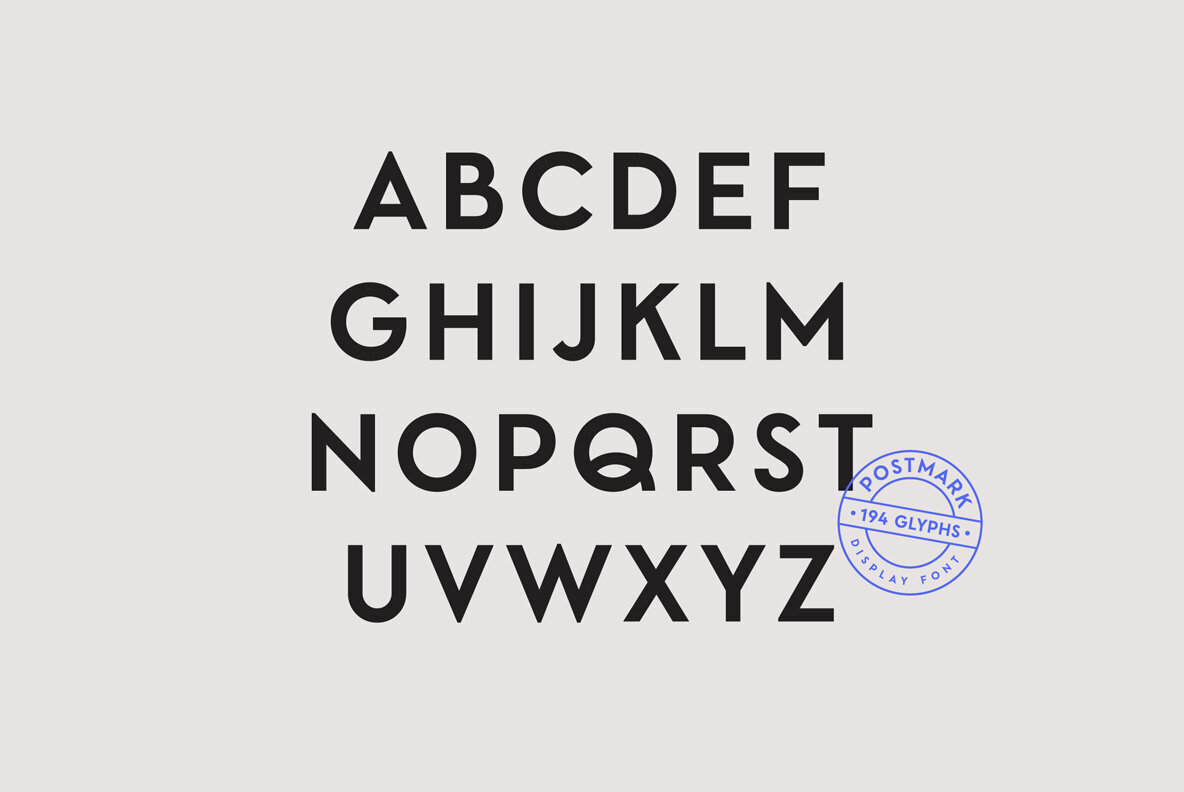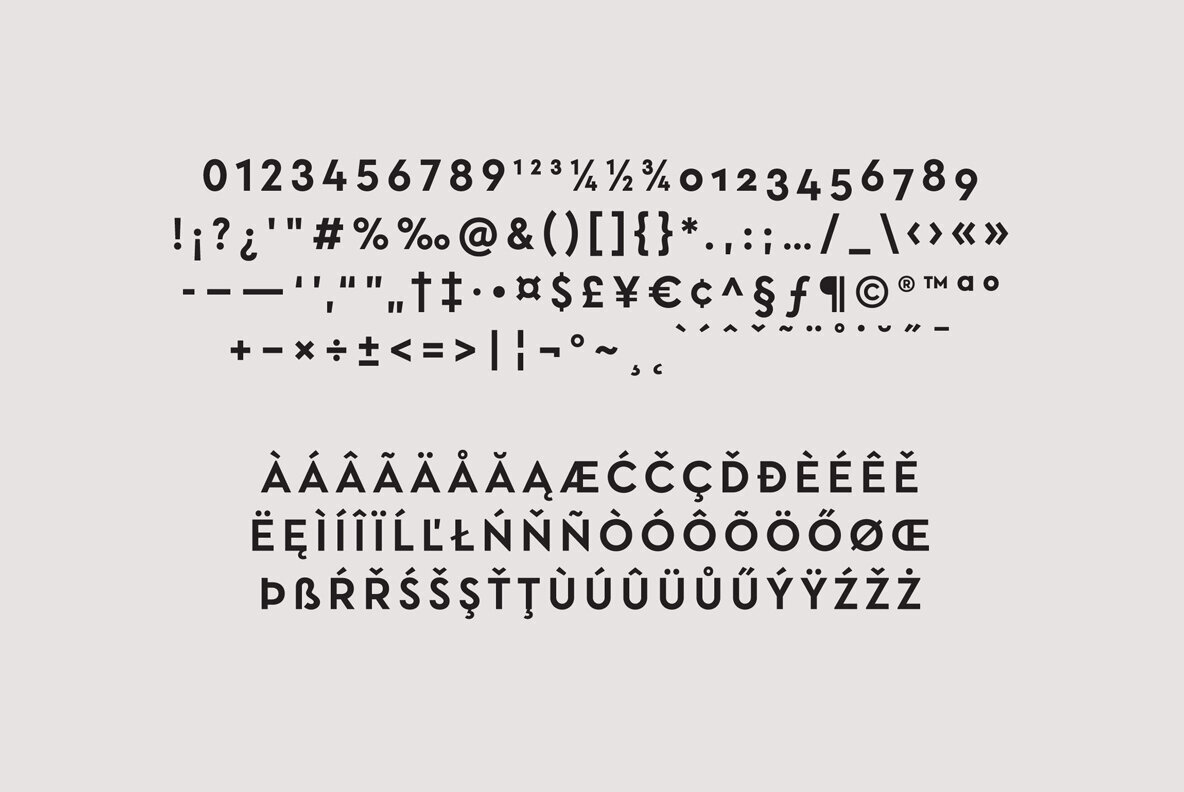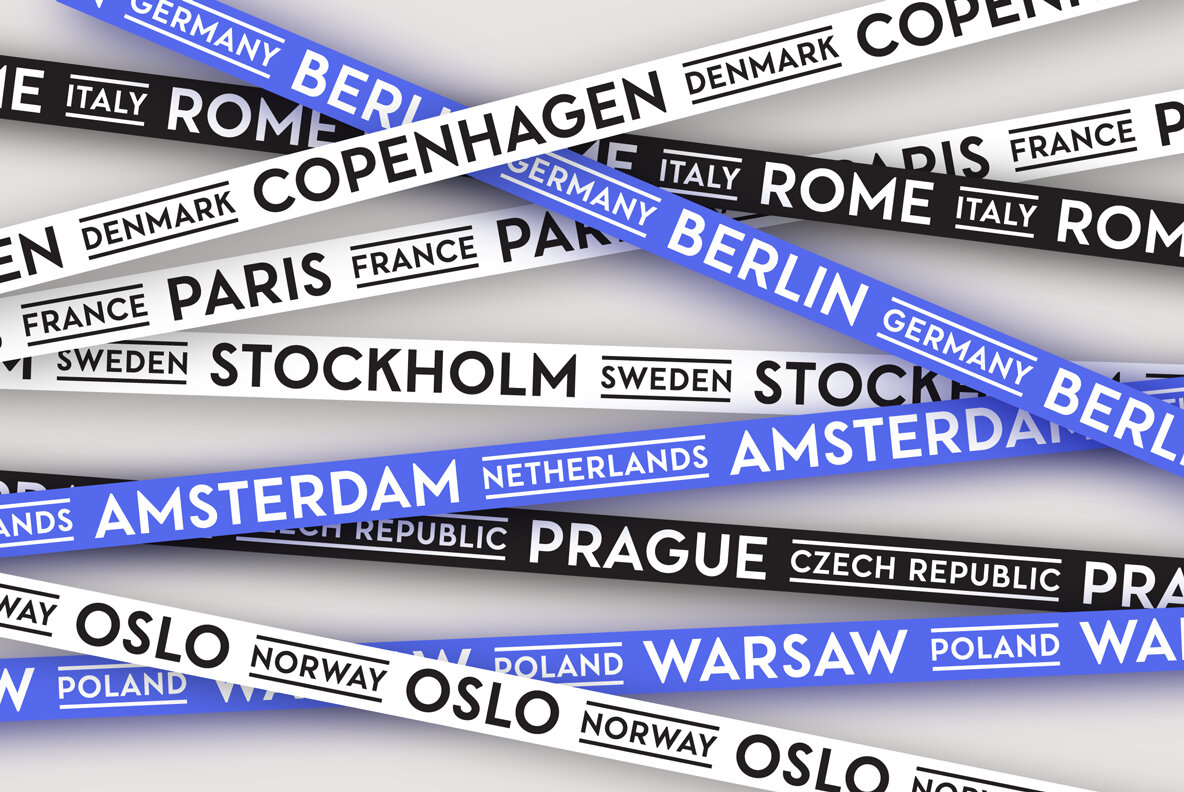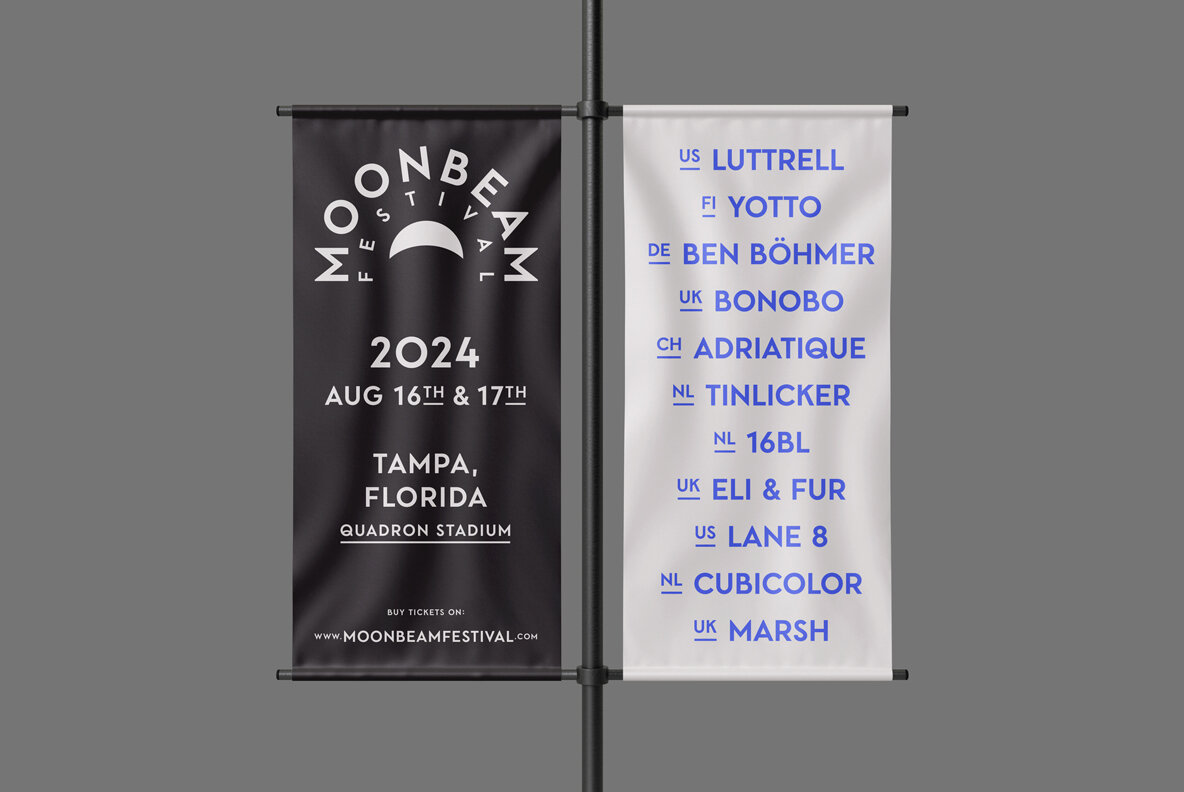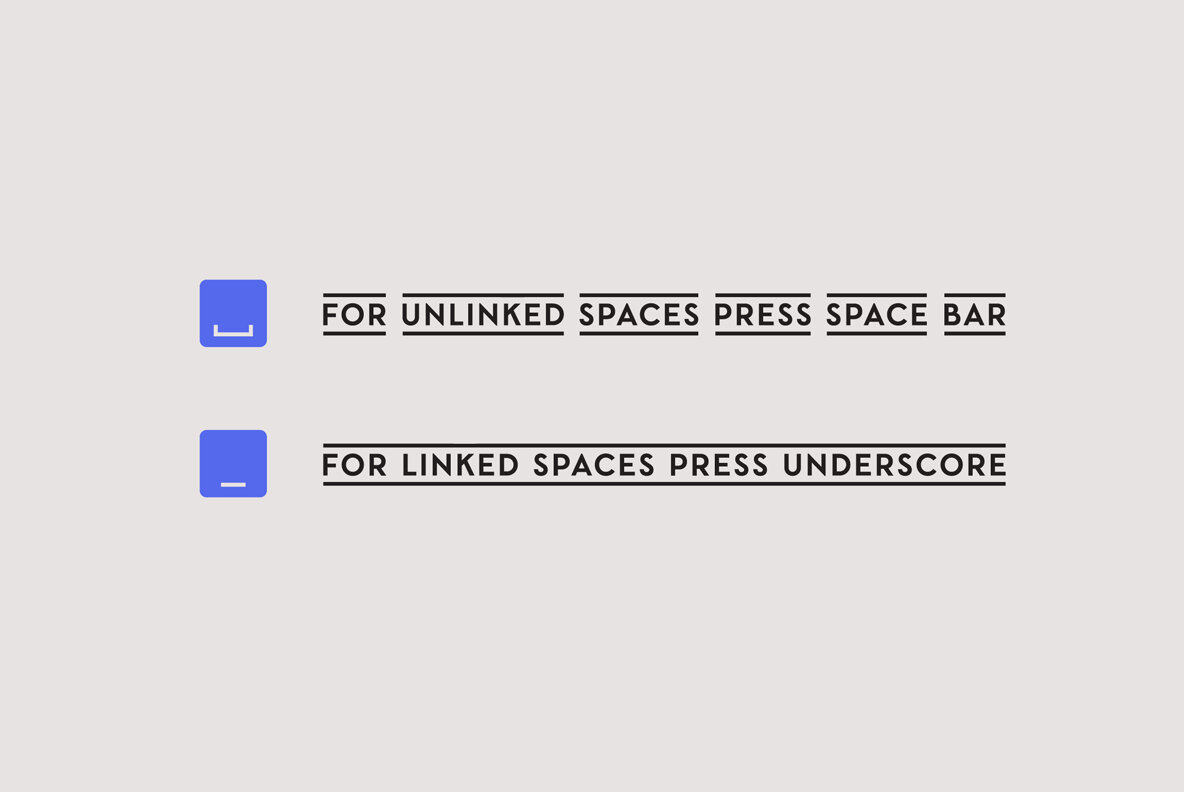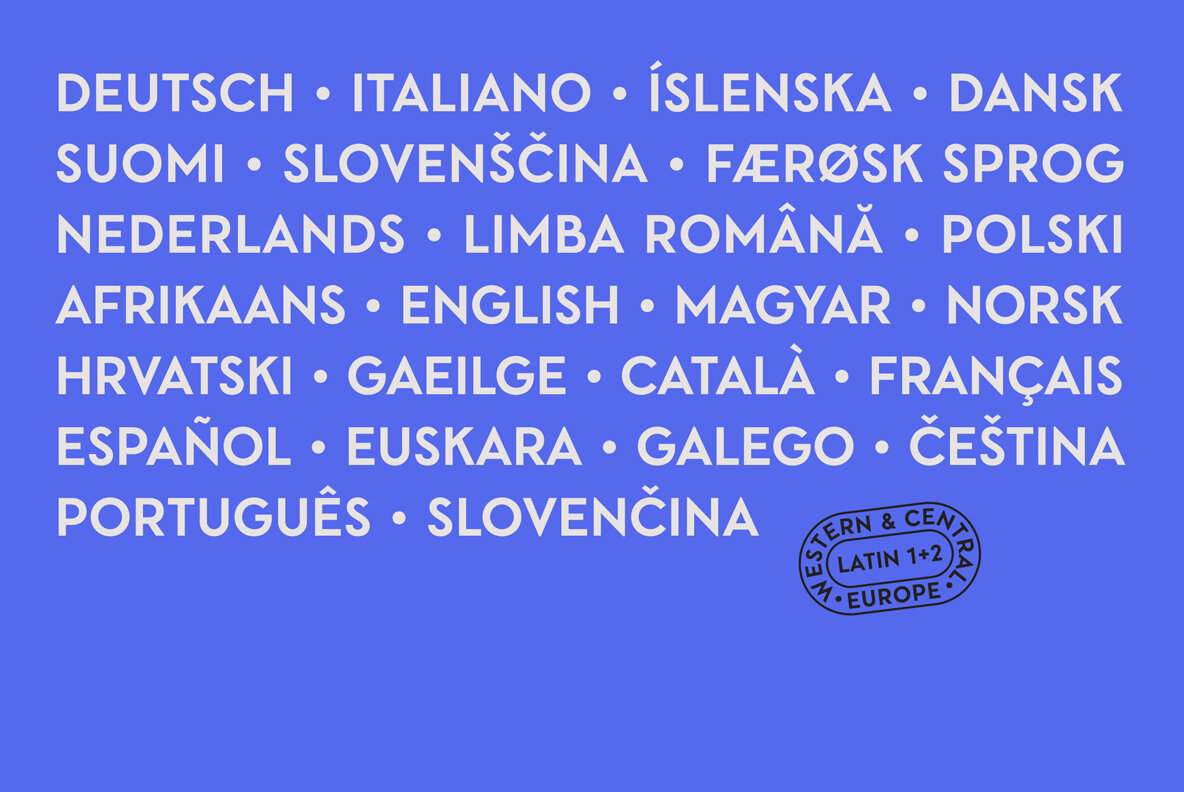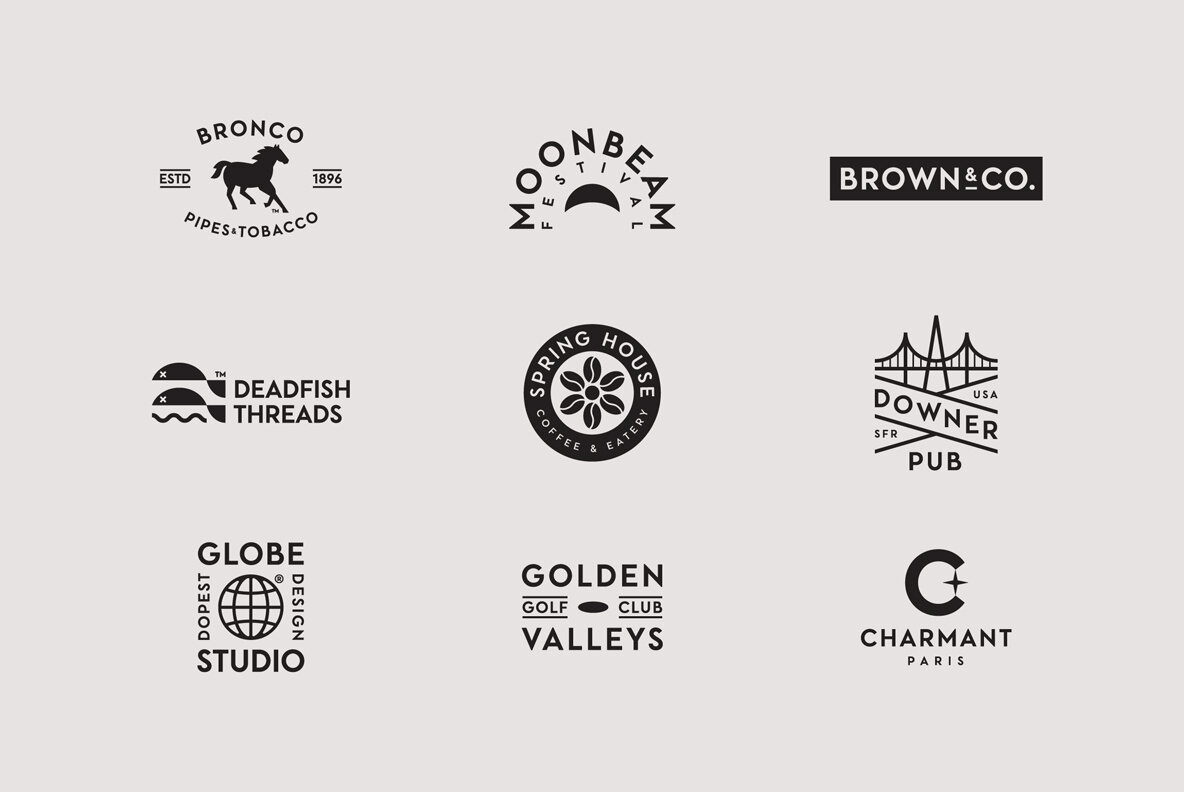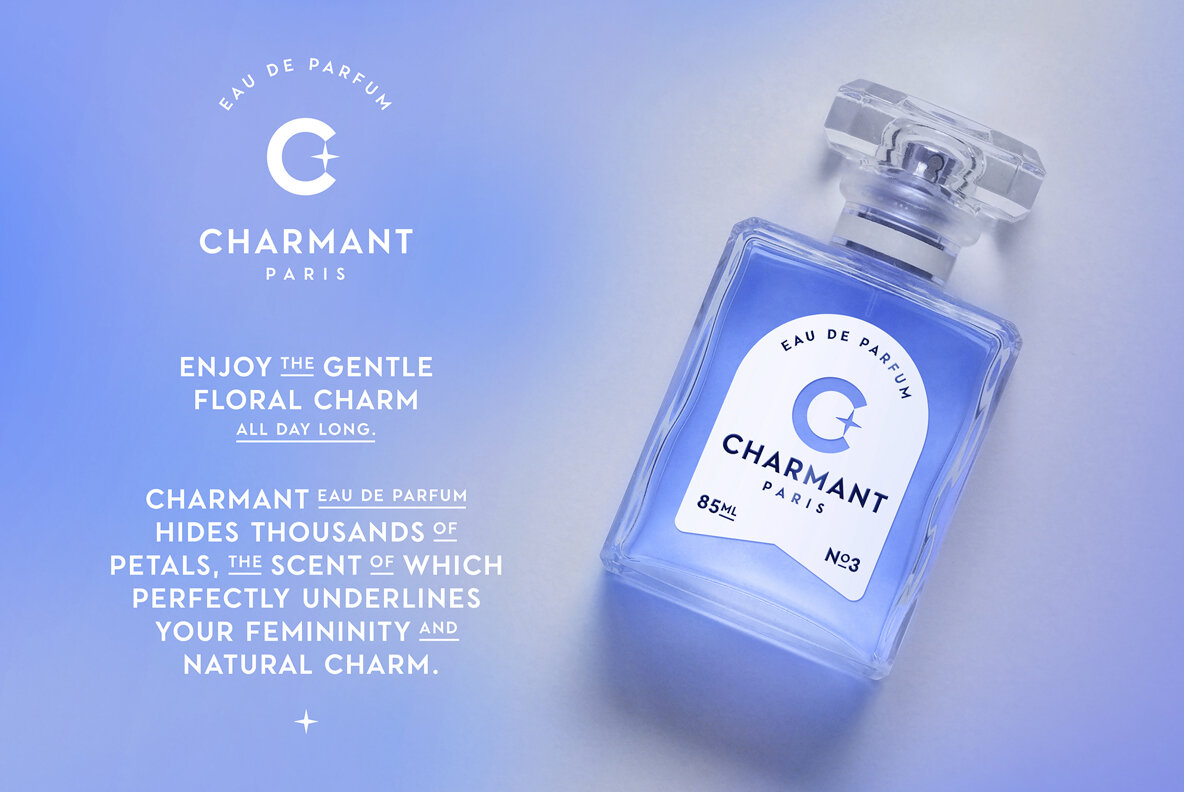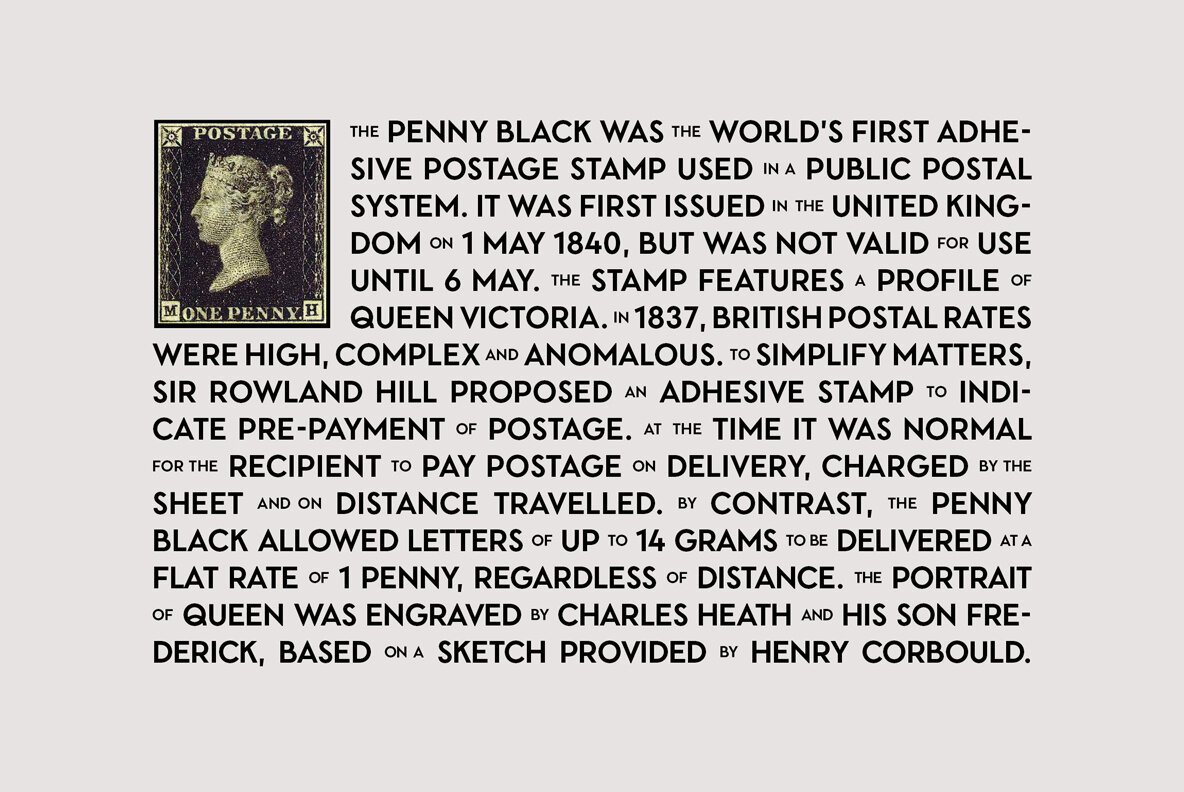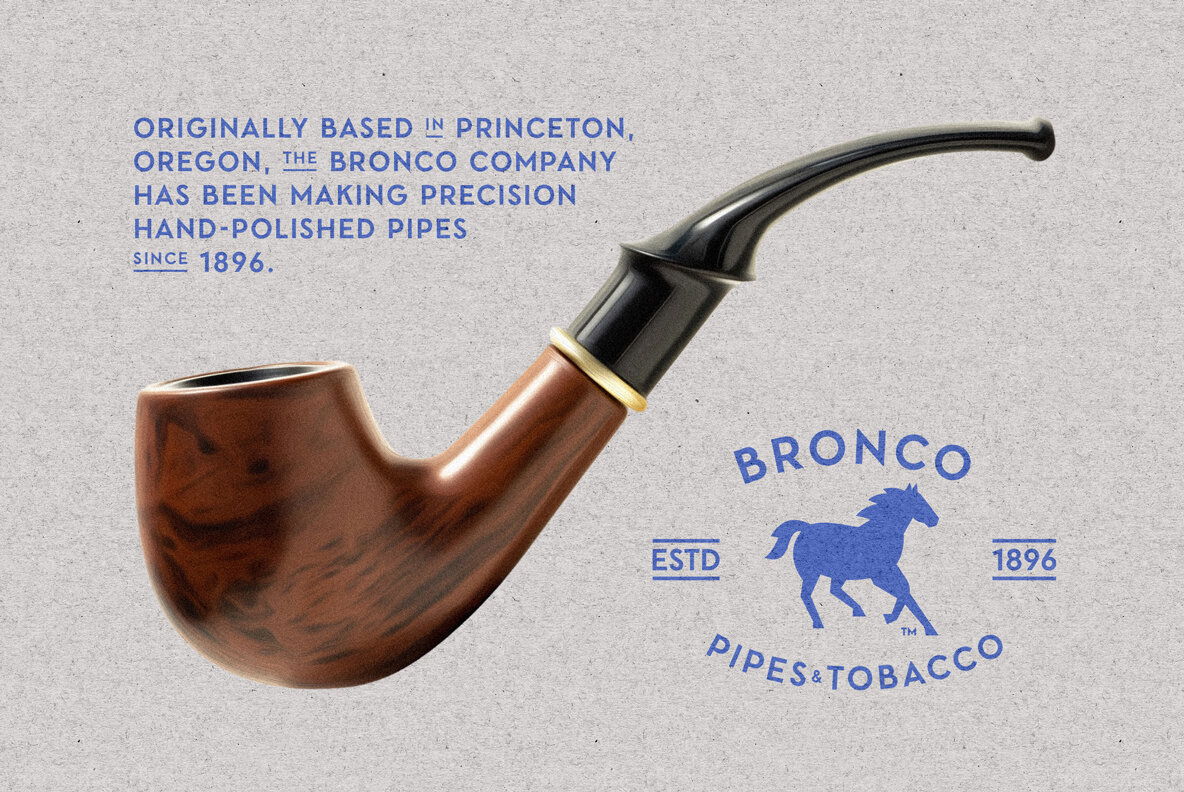
Postmark Font
Postmark
Postmark Style 1
Postmark Style 2
Postmark Style 3
Postmark is a geometric display font distinguished by its clean look and versatility. It includes one basic style and three unique special styles designed to enhance and differentiate your text. These special styles complement the main font, providing versatility for headlines, logos, labels, packaging, magazines, invitations, and more. This font supports Latin 1 and Latin 2 scripts, covering a range of languages across Western Europe and the Americas, such as Afrikaans, Danish, Dutch, English, Finnish, French, German, Italian, Norwegian, Portuguese, Spanish, and Swedish. Additionally, it supports Latin-written Slavic and Central European languages, including Czech, Hungarian, Polish, and Romanian.Postmark: Clean Geometric Display Font with Versatile Styles